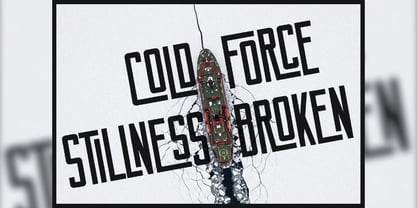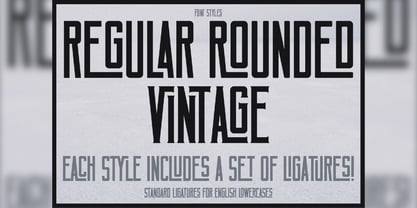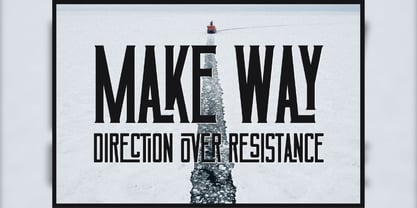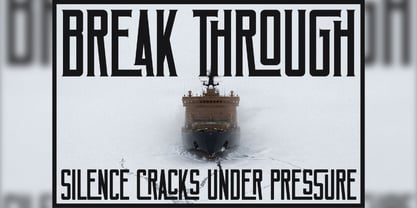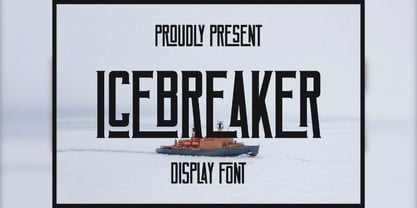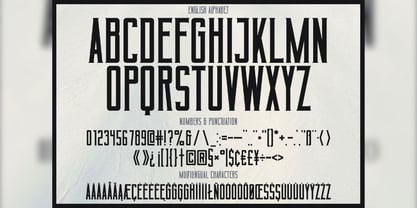
Icebreaker
by Vozzy
The Icebreaker Font Family was designed by Oleg Voznyy and published by Vozzy. Icebreaker contains 3 styles and family package options.
Introducing the captivating font "Icebreaker," designed specifically for headlines and accent inscriptions that demand attention. This unique typeface features a diverse range of additional characters, punctuation marks, and multilingual characters, ensuring versatility for various design projects. With a wealth of standard ligatures, "Icebreaker" enhances your typography, provided your software supports this OpenType feature. Perfect for branding, web design, and editorial use, this font will elevate your beautiful designs and make a lasting impression!
Designers: Oleg Voznyy
Foundry: Vozzy